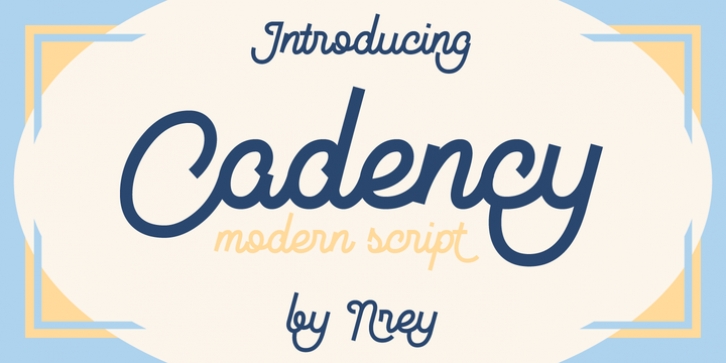
Cadency was designed by Andriy Dykun and published by NREY. Cadency contains 1 style.
Cadency is a cool and modern script font, monolinear with cut sharp ends. Can be used for your various design projects such as logotype, poster, digital lettering arts, clean design, branding design, signs, and more.